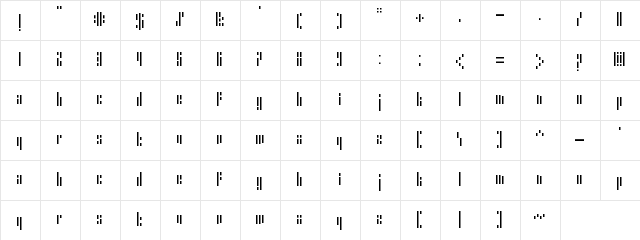
Error Stencil Regular
Designer: 1saac
Design Context for Error Stencil
Error Stencil borrows the utilitarian aesthetic of stencil lettering, with its characteristic cutaways and no-frills construction lending an industrial edge.
Pro Tip: Use Error Stencil at large sizes on packaging, posters, or apparel where the stencil cutaways read clearly. Avoid small sizes where those gaps become visual noise.